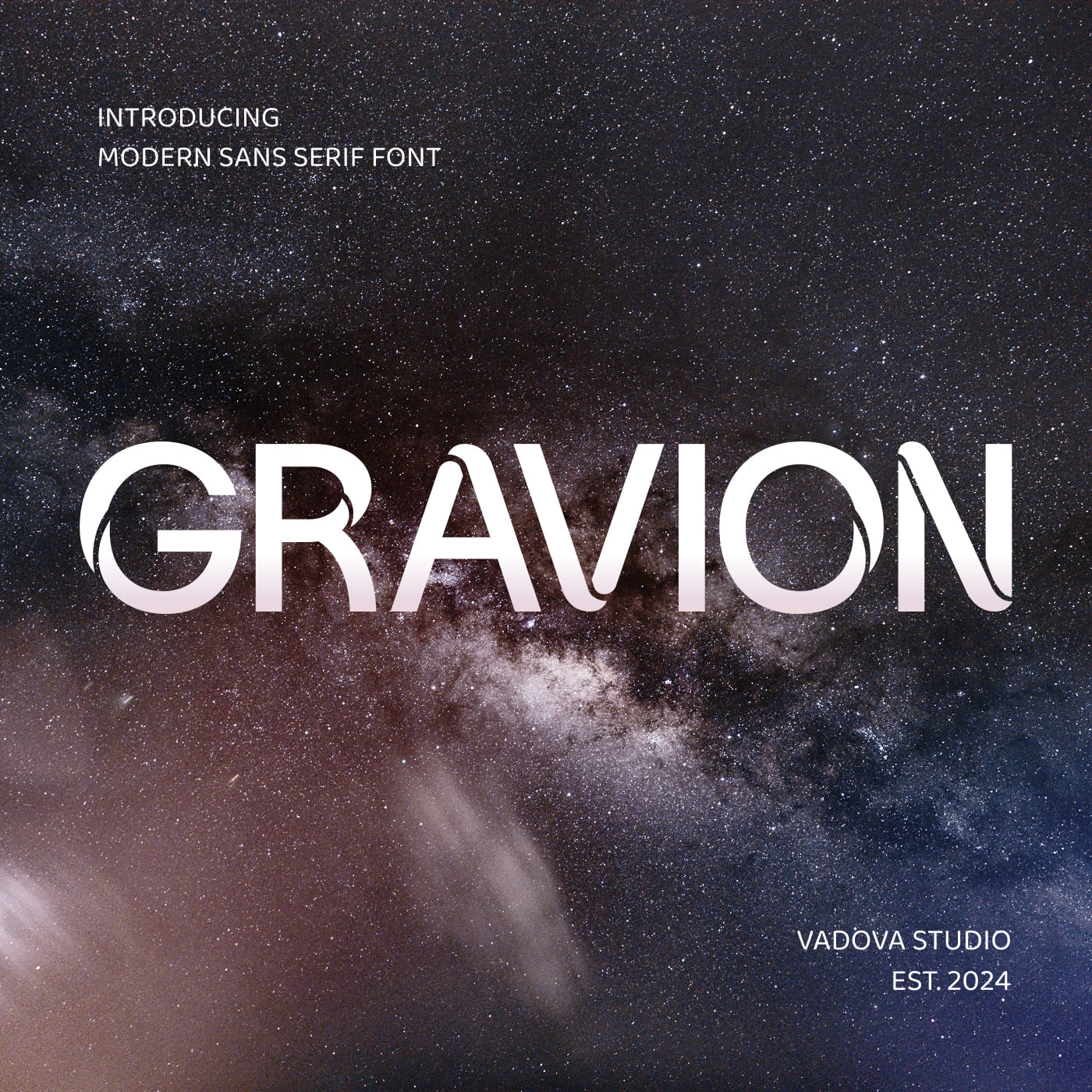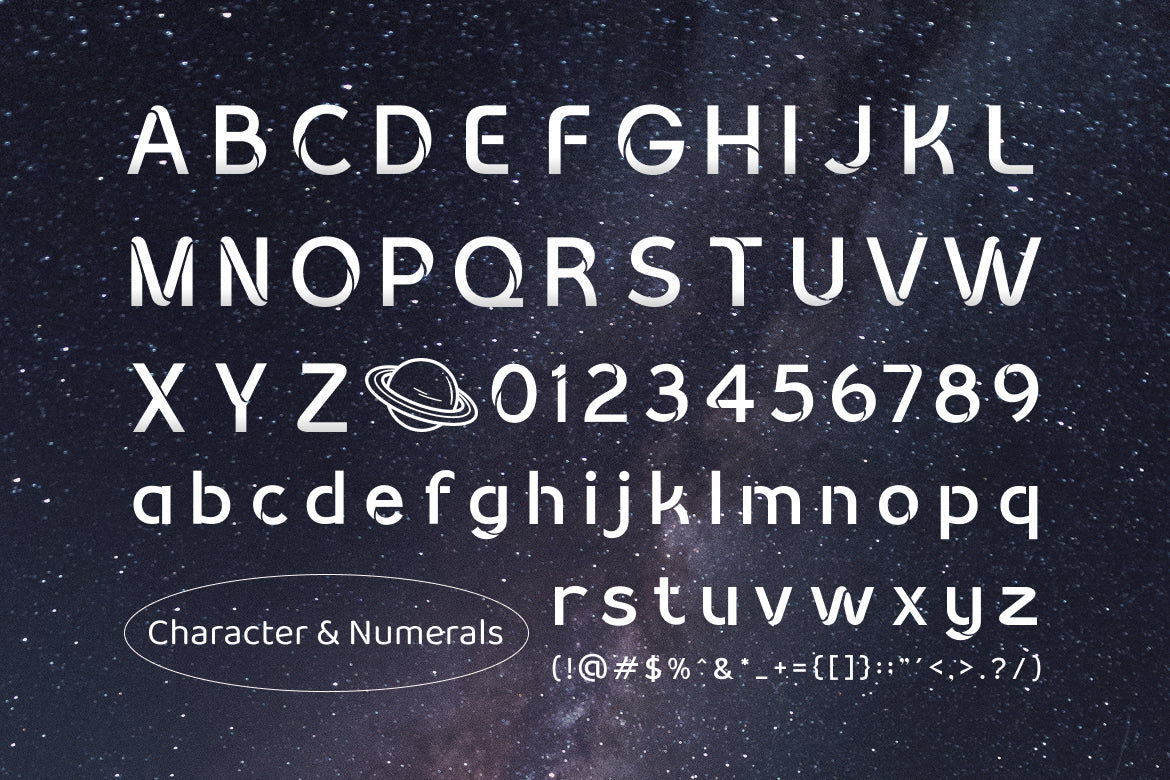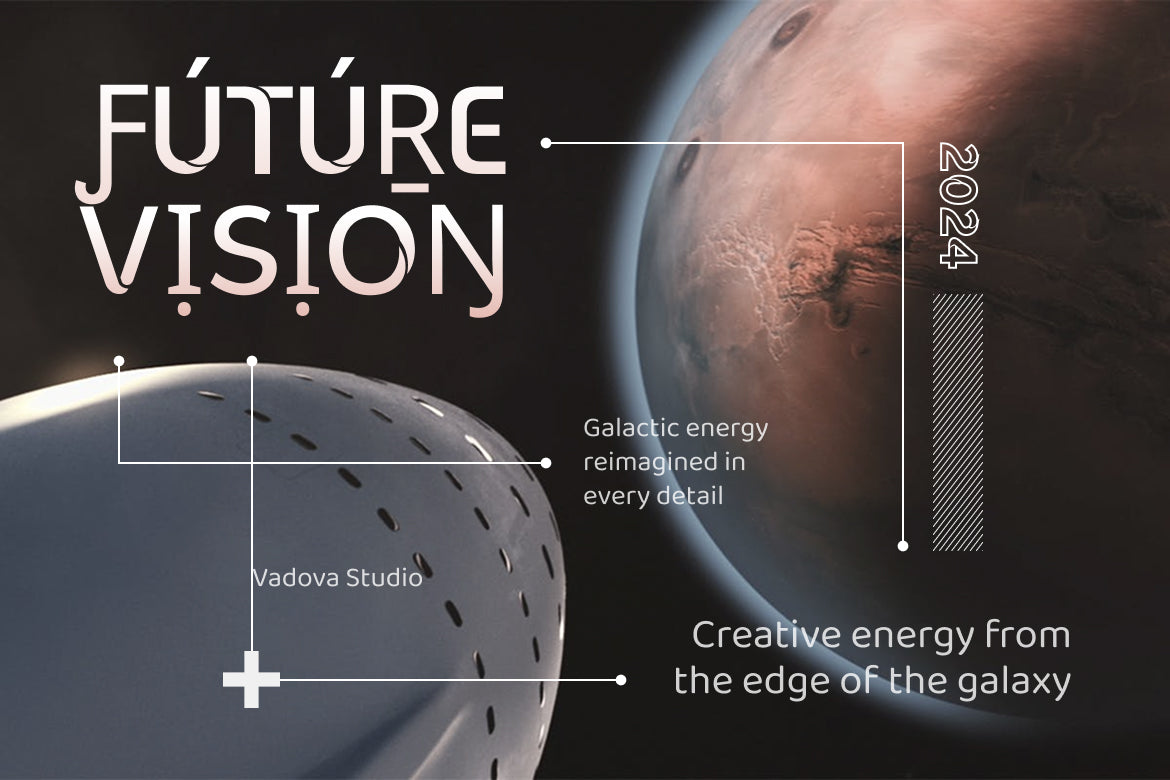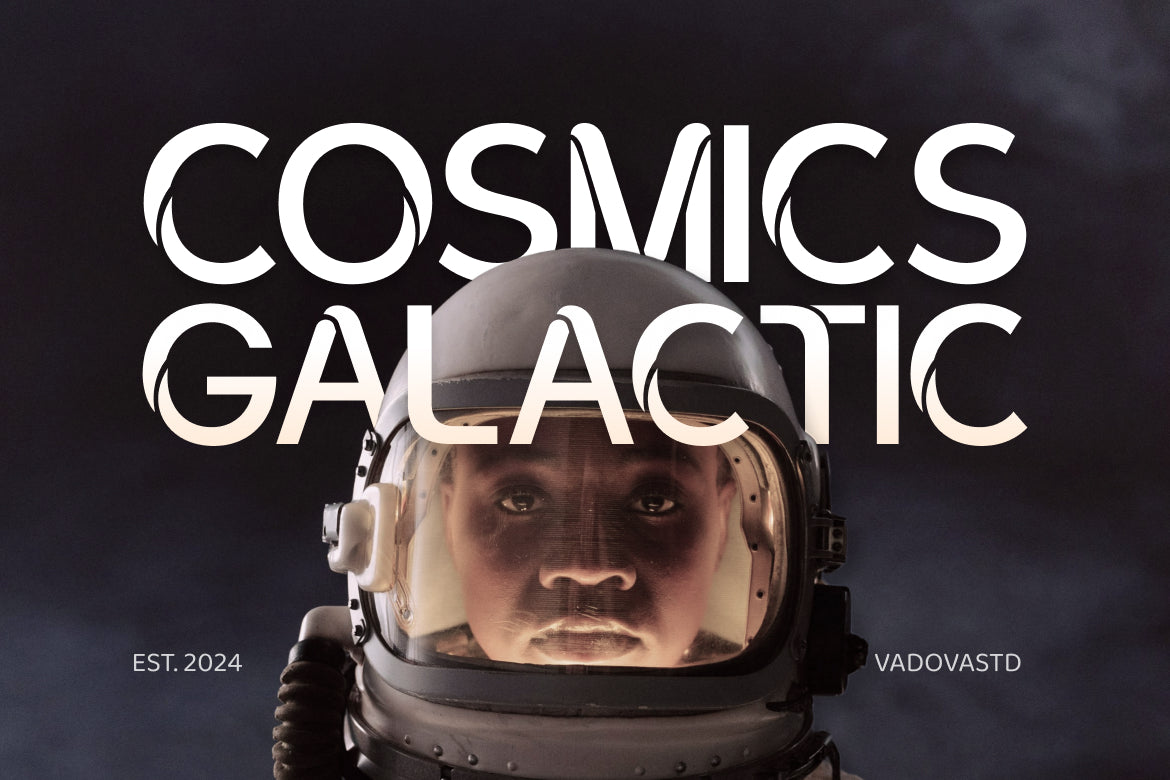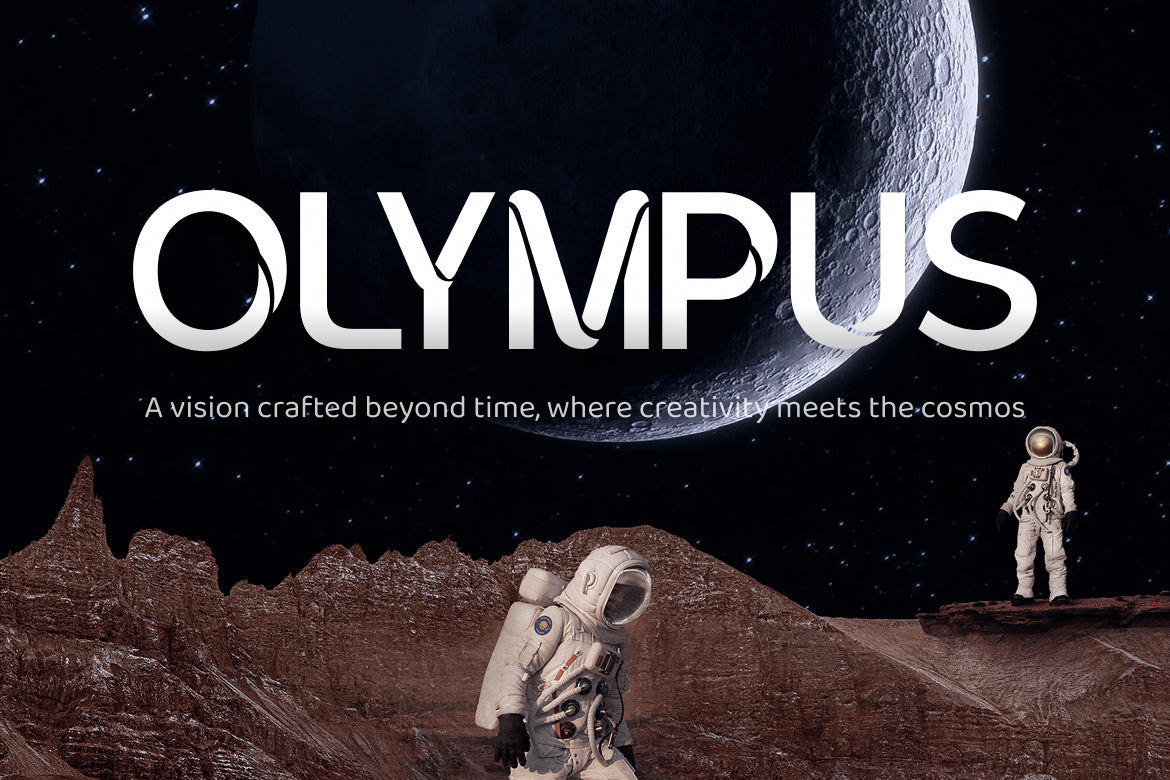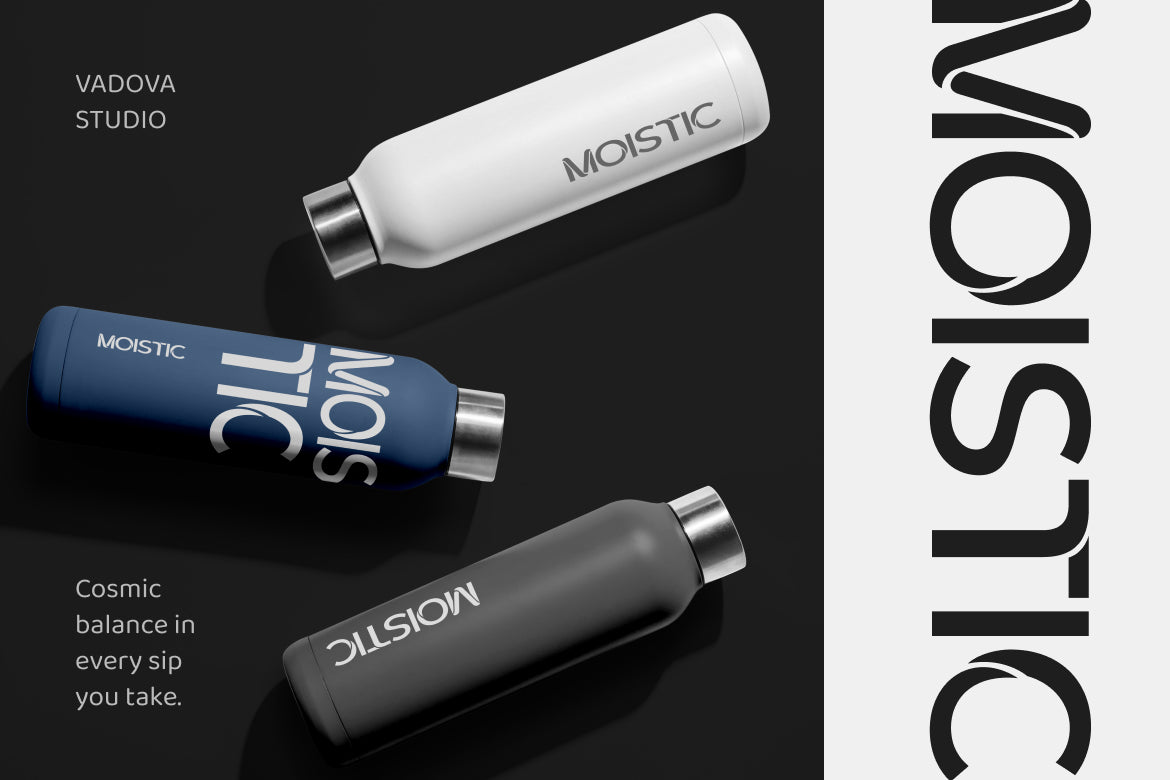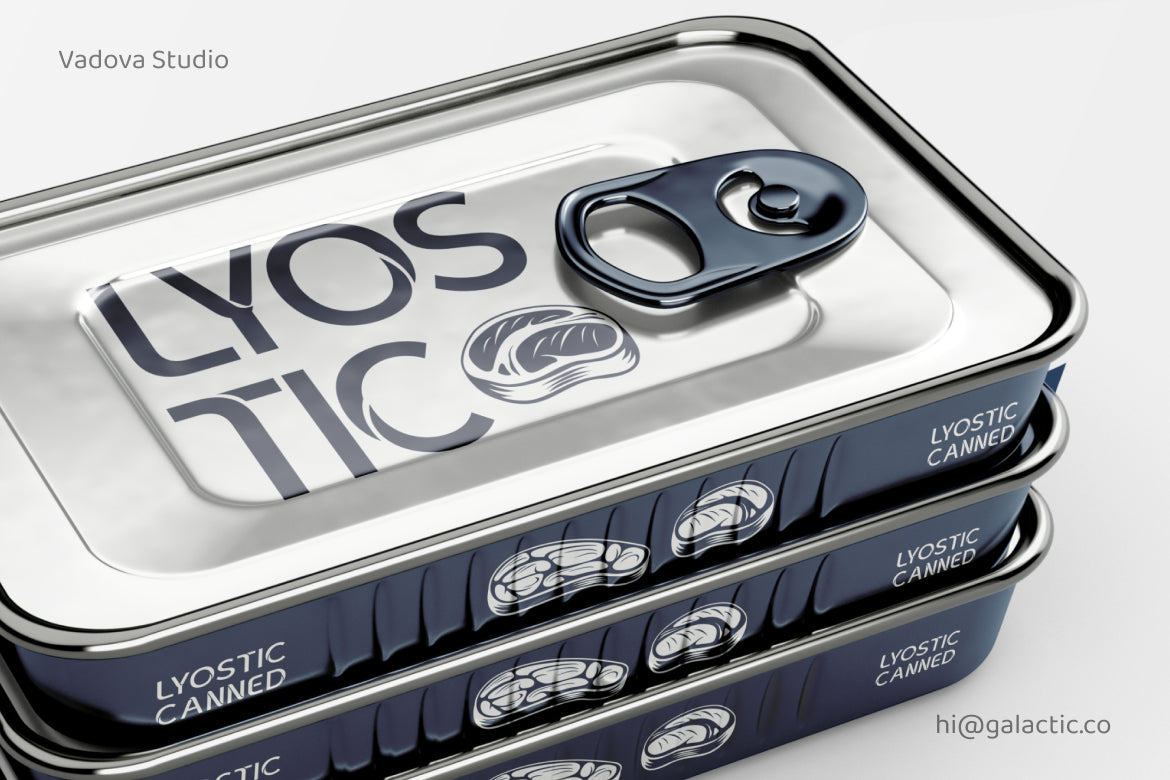
Gravion Modern Sans Serif Font
Gravion Modern Sans Serif Font presents a futuristic sans serif with sleek geometric construction, cosmic-inspired details, and distinctive sci-fi character accents. Designed with uppercase, lowercase, numerals, punctuation, and decorative alternates, this font balances readability with experimental display appeal. Comes in editable font files suitable for branding, editorial layouts, digital interfaces, posters, and logo systems. Perfect for personal and commercial creative projects, while preview mockups are for presentation purposes only.
Relevance and Use Cases is perfect for futuristic branding, sci-fi posters, gaming visuals, technology startups, music covers, editorial headlines, cinematic titles, digital interfaces, merchandise design, and experimental logo systems requiring a sleek cosmic atmosphere and modern galactic character.
Gravion Modern Sans Serif Font is a futuristic sans serif typeface featuring sleek geometric construction and sci-fi character accents. It includes uppercase and lowercase letters, numerals, punctuation, and decorative alternates, and is available in TTF, OTF, and WOFF formats, making it suitable for a variety of creative projects.